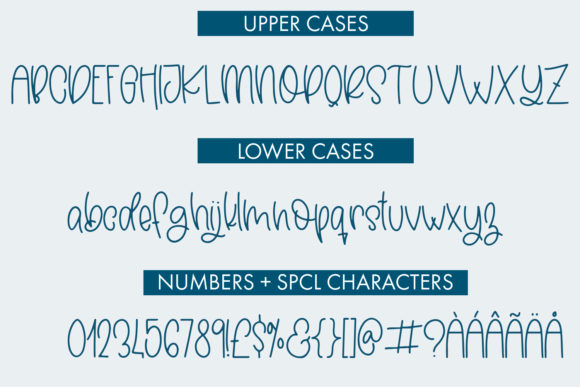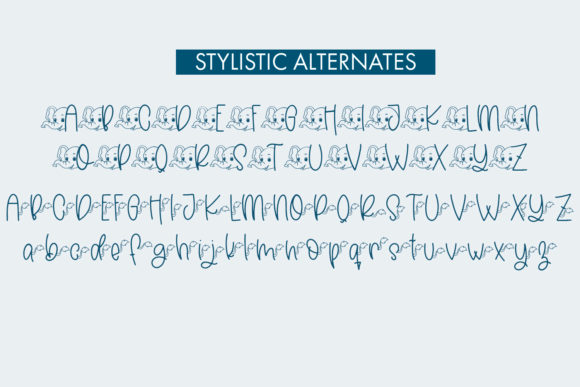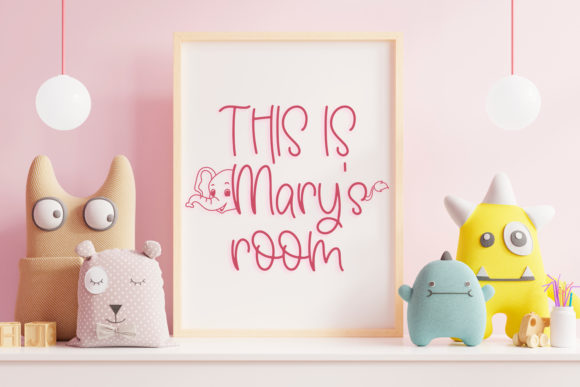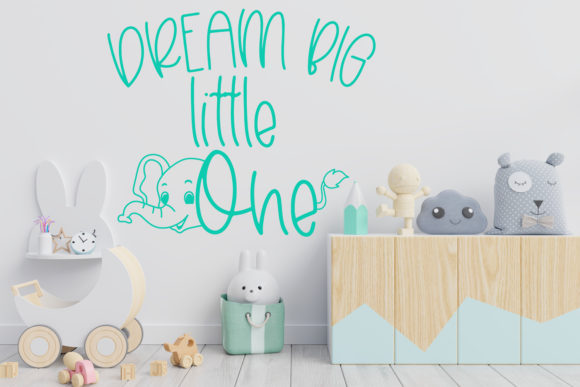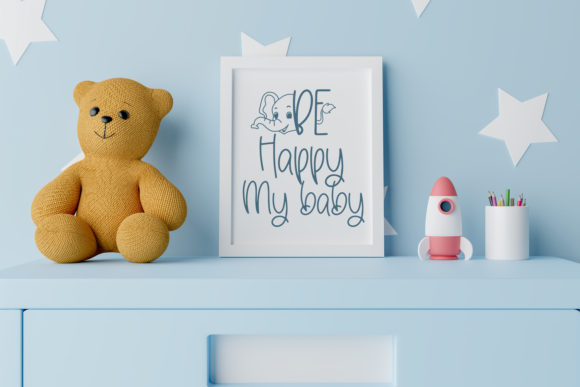
Introduction to Silly Peanut Font
Have you ever been working on a creative project, and suddenly, you need that one special something to make it pop? Maybe it’s a custom invitation, a birthday card, or even a business logo. Whatever it is, you know it needs a touch of personality to make it truly stand out. That’s where the Silly Peanut Font comes in – a delightful, high-quality decorative font that’s sure to bring joy to any design.
As a designer, you’re always on the lookout for unique and versatile design resources that can elevate your work. The Silly Peanut Font is a valuable addition to any designer’s toolkit, offering a range of creative possibilities with its adorable baby elephant ornaments. Whether you’re working on a personal project or a commercial design, this font is sure to bring a smile to your clients’ faces.
Key Features of Silly Peanut Font
- High-quality, hand-drawn design with a playful and whimsical feel, making it perfect for creative projects.
- Includes a range of characters, including uppercase and lowercase letters, numbers, and special characters, making it a versatile design resource.
- Unique characteristic: the Silly Peanut Font features a distinctive, irregular letterform style that adds a touch of personality to any design project.
Honest Review: Silly Peanut Font
I recently came across the Silly Peanut Font and was excited to give it a try in my latest creative project. As a designer, I’m always on the lookout for high-quality design resources that can add a personal touch to my work.
- Playful and whimsical style
One of the limitations of the Silly Peanut Font is its limited character set. ⚠️ While it’s perfect for short phrases or titles, it may not be the best choice for longer blocks of text. Additionally, the font’s playful style may not be suitable for all types of projects.
Overall, I’d say the Silly Peanut Font is a great addition to any designer’s toolkit, especially for creative projects that require a fun and lighthearted touch. With its high quality and transparent background, it’s definitely worth checking out.
Tips for Getting the Most Out of Silly Peanut Font
To get the most out of the Silly Peanut Font, try combining it with other playful design elements, such as colorful graphics and whimsical illustrations. You can also experiment with different font sizes and colors to create a unique look.
The Silly Peanut Font is perfect for a variety of creative projects, including children’s party invitations, birthday cards, and educational materials. It’s also great for adding a touch of whimsy to social media graphics and marketing materials.